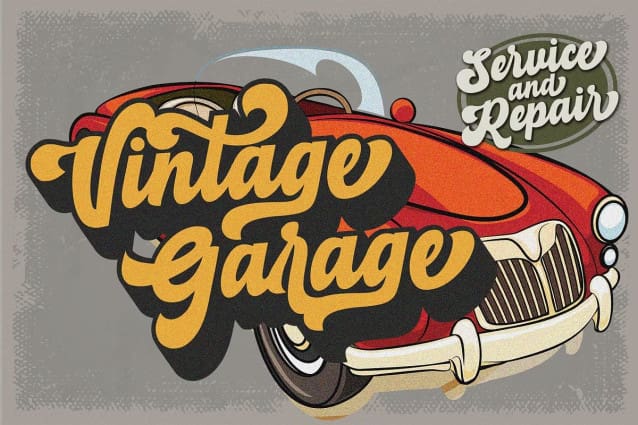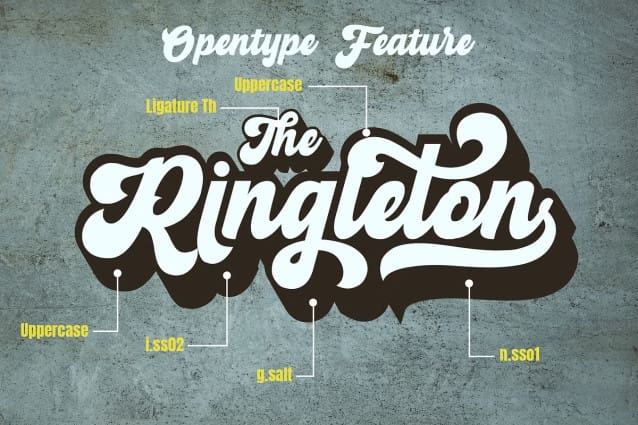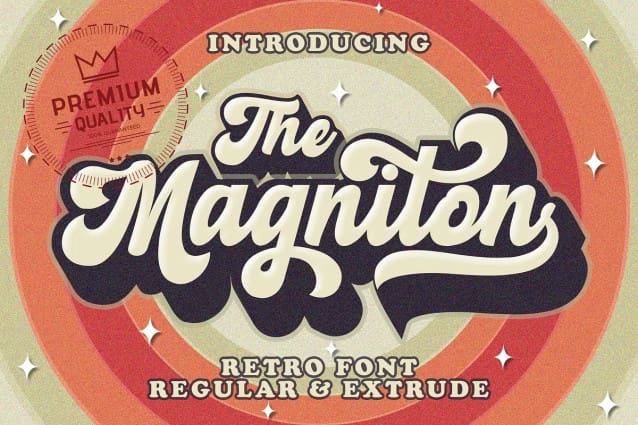
Magniton Retro Font
Magniton Retro Font is a bold retro font that has a very strong vintage character that adds a classic impression to every design, this font also has many OpenType features that provide many choices in design.
Magniton is perfect for branding designs, packaging designs, poster designs, logotypes, social media posts, labels, watermarks, fashion design, photography, and more.